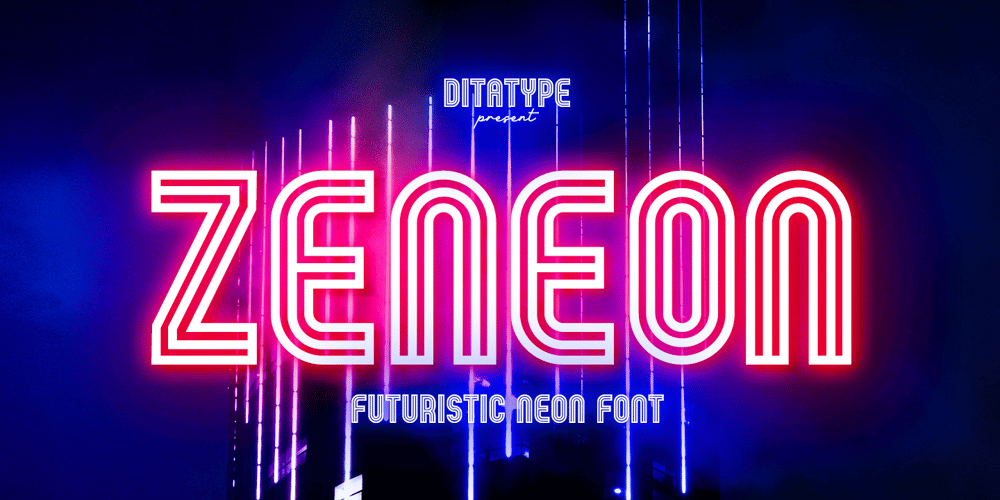
Zeneon Font Family was designed by Donis Miftahudin and published by Ditatype. Zeneon contains 1 styles and family package options. Zeneon is an extraordinary display font that combines the captivating allure of neon lights with an intriguing inline design. With its bold uppercase letterforms and electrifying neon style, this typeface creates a visually stunning and unforgettable impact. The defining feature of Zeneon lies in its mesmerizing neon-inspired design, enhanced by a distinctive inline element. Each letter is meticulously crafted to emanate the vibrant glow of neon lights, capturing the essence of urban energy. The inline detail adds an extra layer of visual interest, creating a dynamic and captivating composition.Inspired by the enchanting charm of neon signs, Zeneon infuses a sense of liveliness and modernity into each character. The font embodies the pulsating energy of neon lights, casting a radiant glow that demands attention. This neon style evokes a nostalgic urban atmosphere, adding a touch of excitement and intrigue to your designs. The uppercase letterforms of Zeneon are bold and assertive, making a powerful statement with their distinct design. The combination of the neon style and the intriguing inline element enhances the font’s overall composition, creating a captivating visual impact. Zeneon is perfect for headlines, logos, signage, and any design project that seeks to command attention with a touch of neon-inspired flair. Enjoy the various features available in this font.Features: Alternates Multilingual Supports PUA Encoded Numerals and Punctuations Zeneon fits for creating posters, branding materials, digital artwork, or anything in between, this font will elevate your project to new heights. It particularly shines in applications related to nightlife, entertainment, technology, and urban-themed designs, where it adds a futuristic edge. Find out more ways to use this font by taking a look at the font preview.Thanks for purchasing our fonts. Hopefully, you have a great time using our font. Feel free to contact us anytime for further information or when you have trouble with the font. Thanks a lot and happy designing.